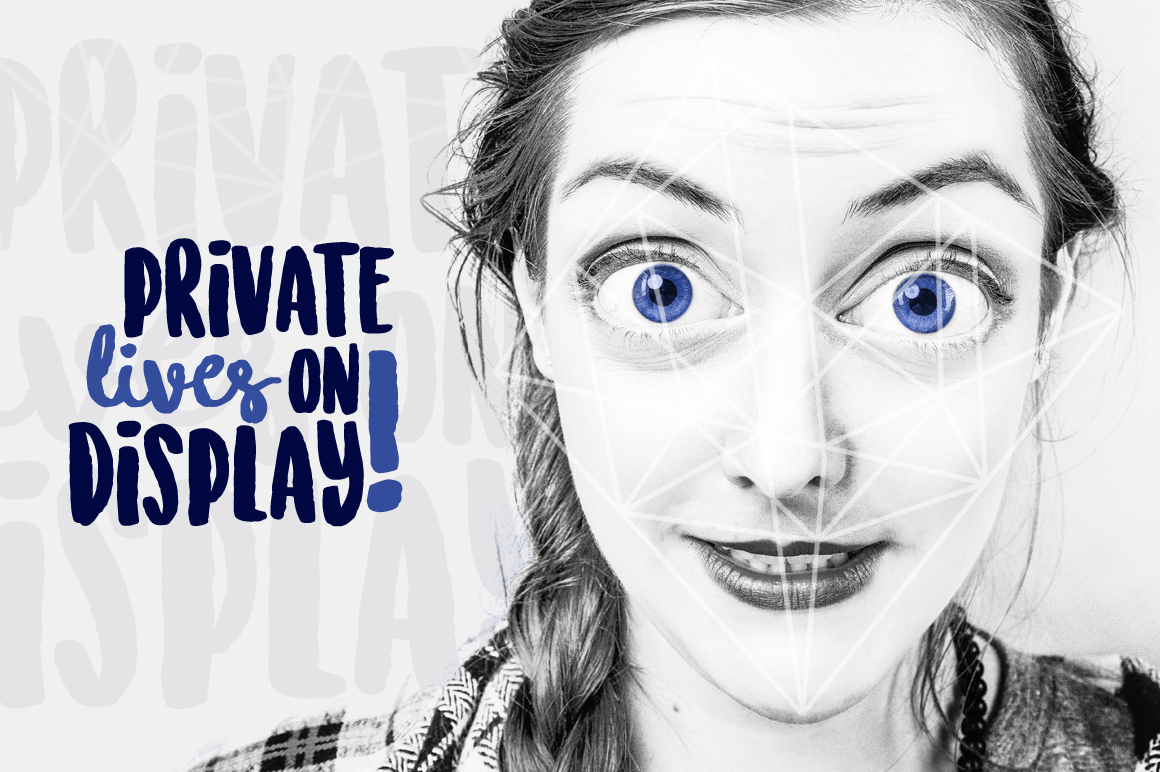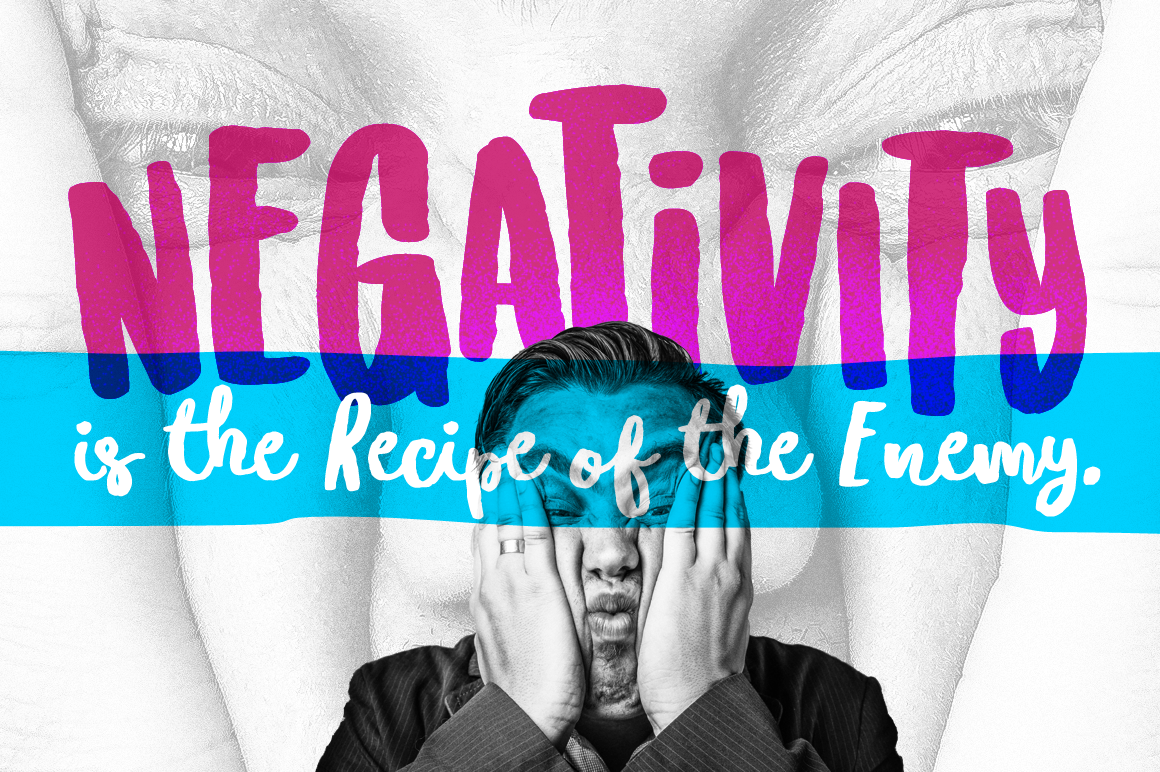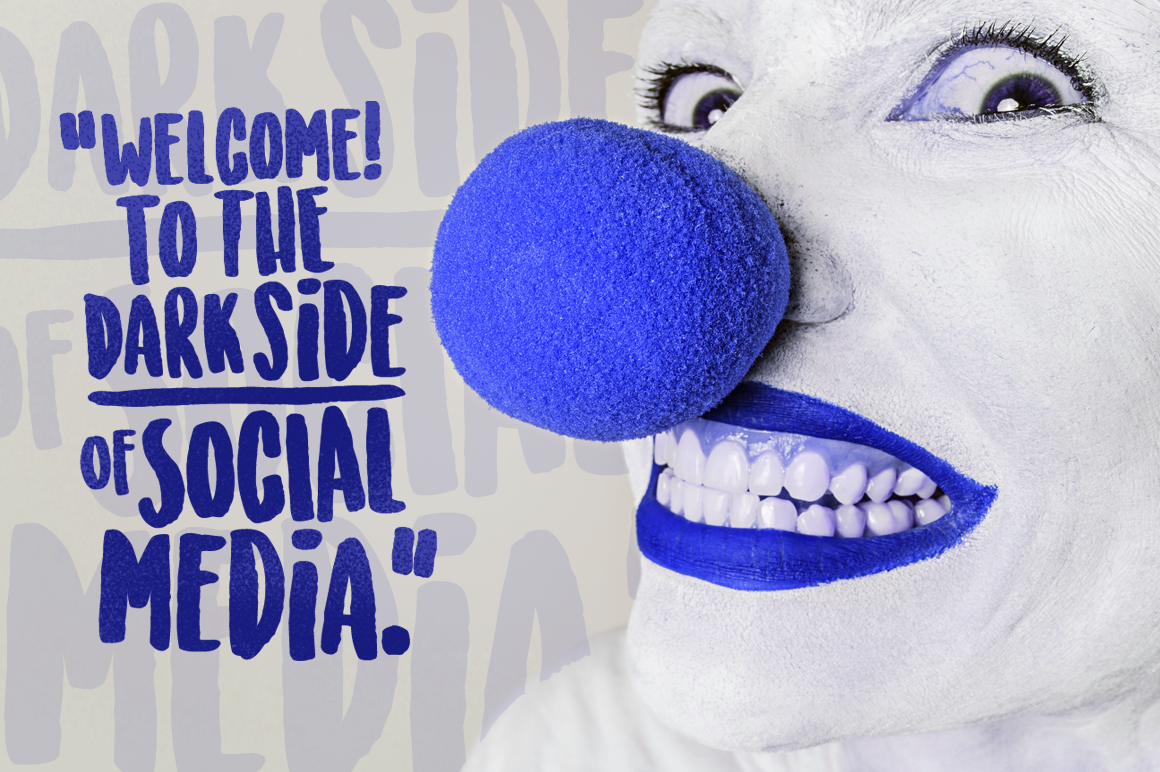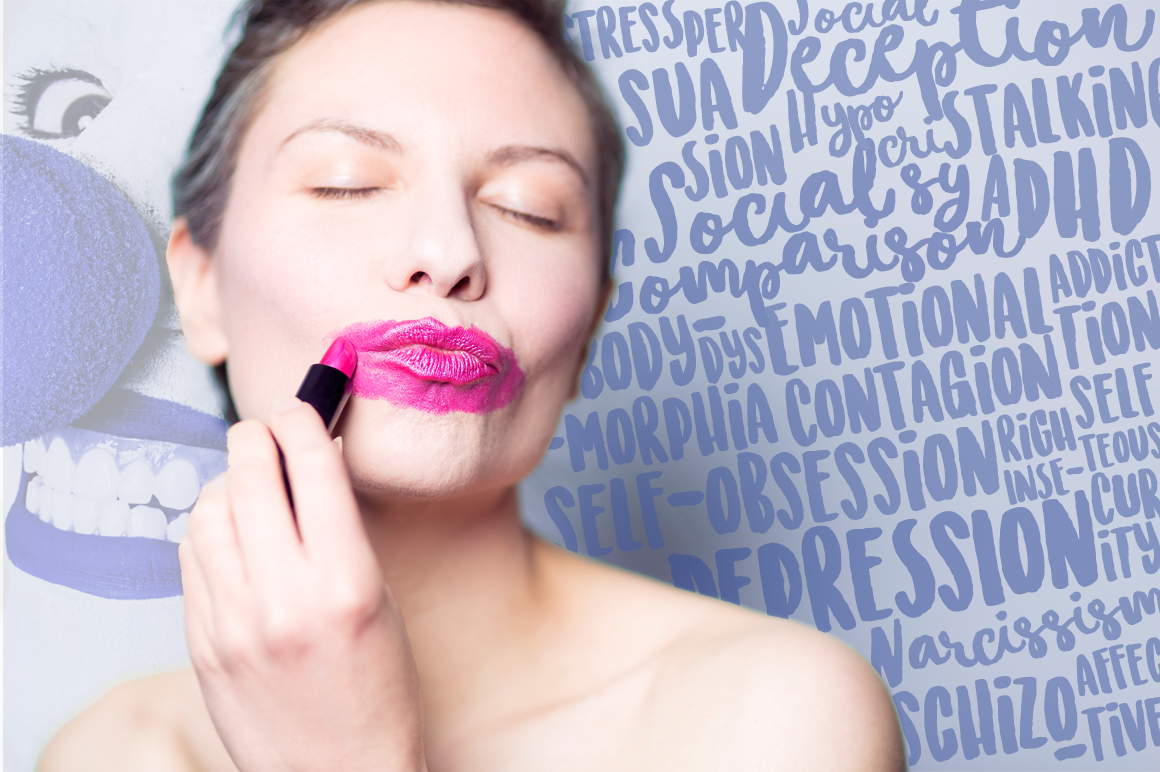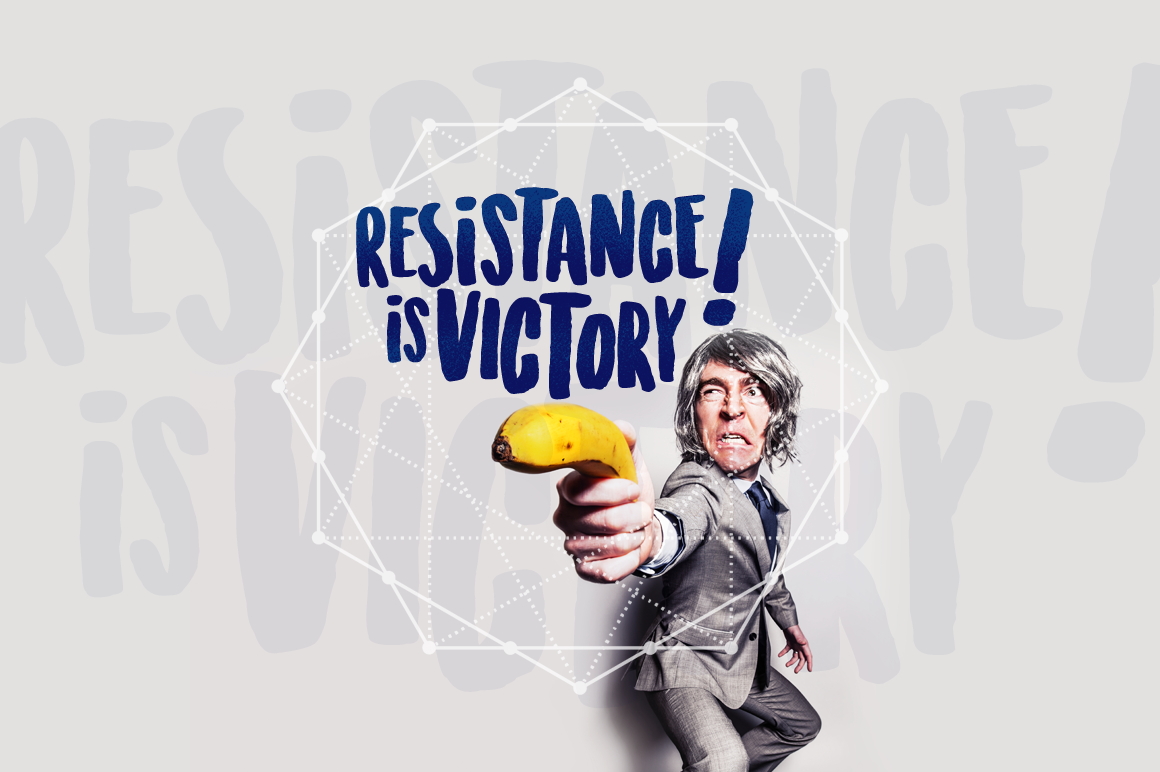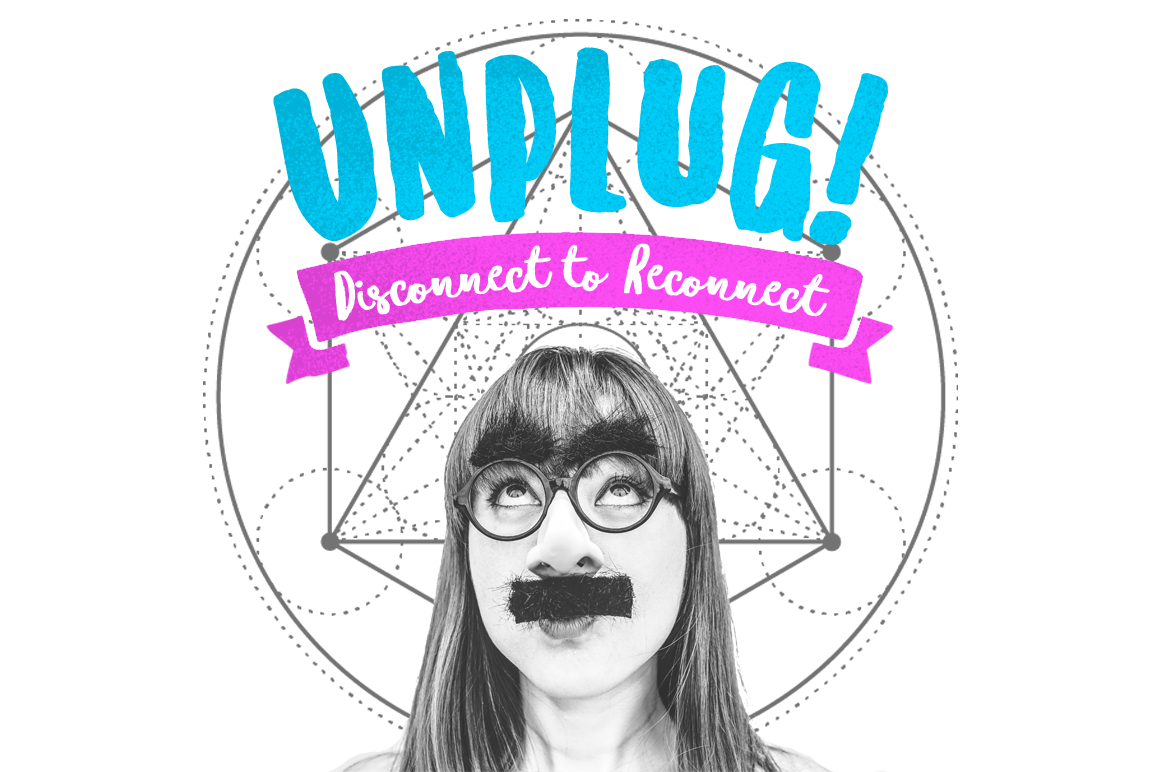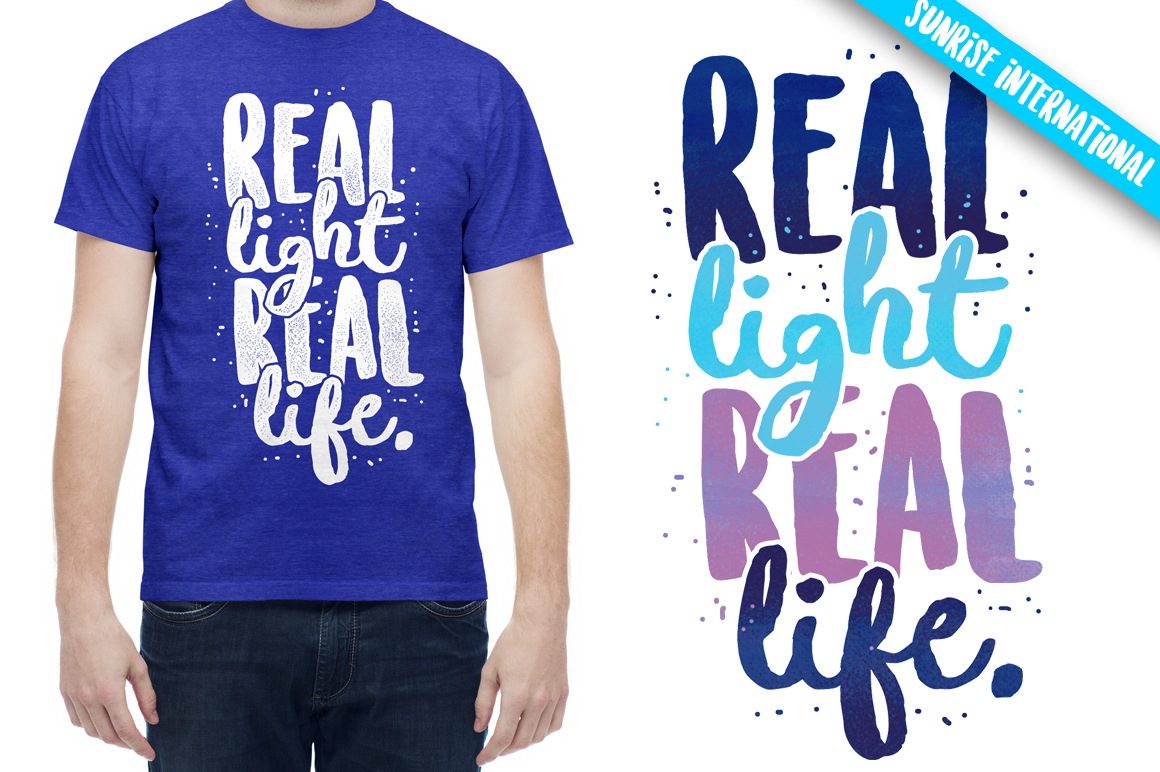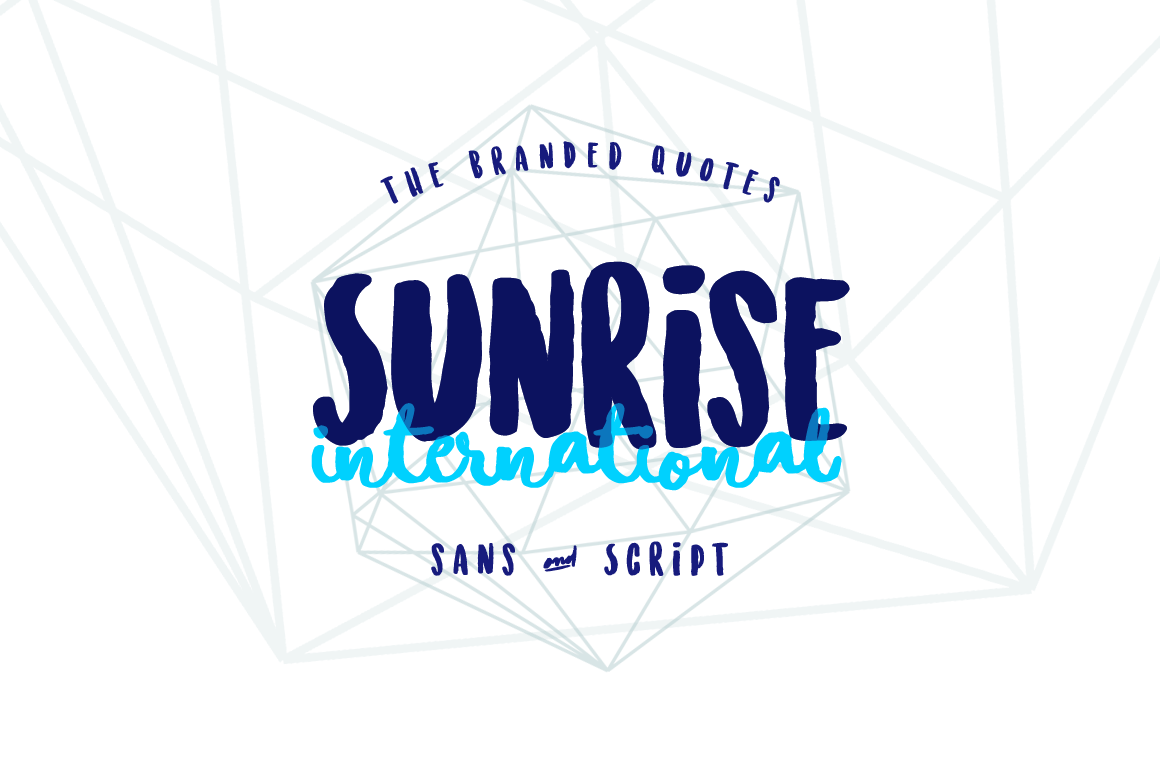
Sunrise International (Typeface)
The purpose is to convey the message in a straightforward manner. Consider Sunrise International a typeface for the worldwide awakening. Built in two different font style to charm the inattentive but without exaggerations on the structures. Sunrise International - with bold brushstrokes and proper heights. The alternates are found on its uppercase form for your convenience. This Sans Serif is a quiet hustler. Sunrise International Script - showcasing the most basic strokes of a script type. Not intended to override anything on your presentation. A brush script without any awkward emphasis. May the font awaken you! Credits: Photography by Ryan McGuire T-Shirt Mockup Template from tyunderscore Rose Gold Geometric Pattern from Aylin Marie Designs Sacred Geometry Vector Bundle from skyboxcreative